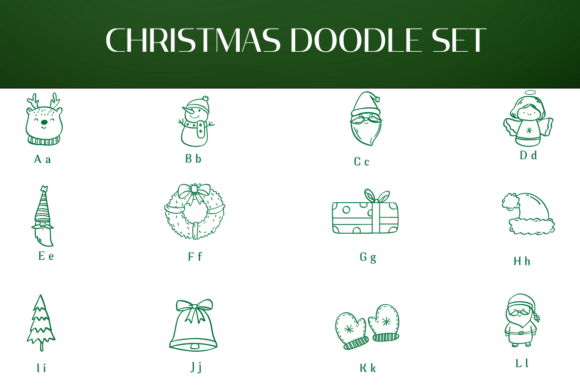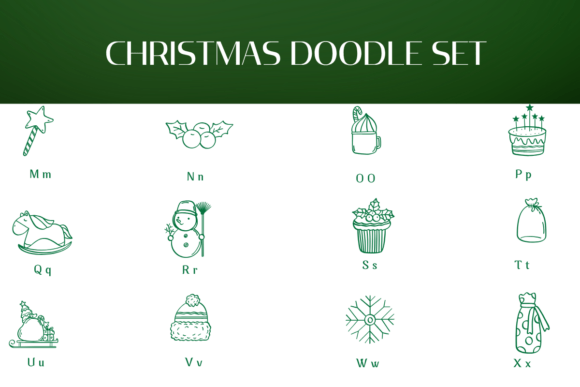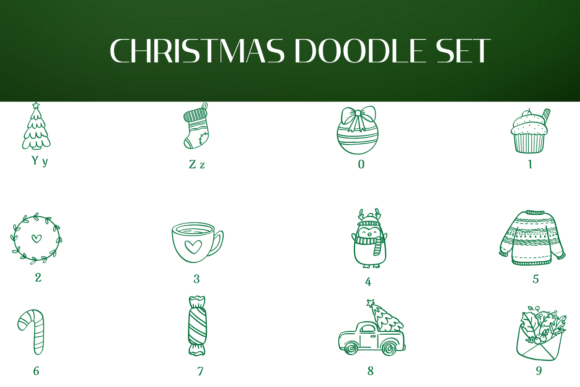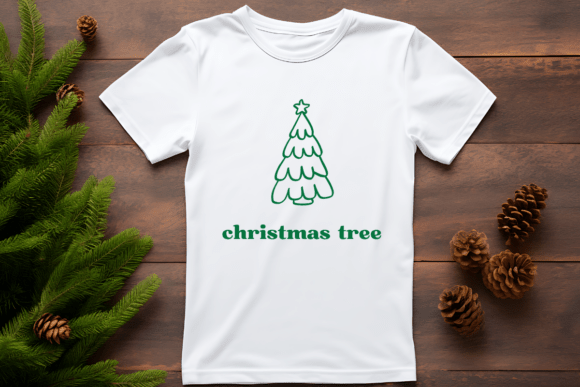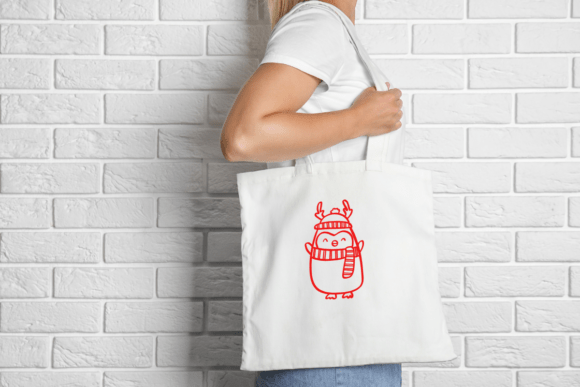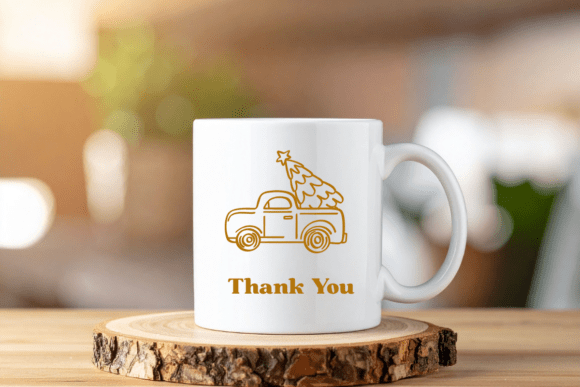
Introducing the Christmas Doodle Set Font: Add a Touch of Holiday Cheer to Your Designs
Are you looking for a way to add a playful and festive touch to your holiday designs? Look no further than the Christmas Doodle Set Font, a charming dingbat font filled with hand-drawn holiday-themed illustrations. This delightful font features a variety of icons, including Santa Claus, reindeer, ornaments, gifts, mittens, snowmen, and more, allowing you to bring seasonal cheer to your design projects with ease.
What is the Christmas Doodle Set Font?
The Christmas Doodle Set Font is a unique and versatile font that consists of a collection of hand-drawn illustrations, each carefully crafted to capture the spirit of the holiday season. From jolly old Santa to playful snowflakes, this font is packed with a wide range of icons that are sure to add a touch of festive fun to any design project. Whether you’re creating greeting cards, gift tags, holiday banners, planner stickers, social media posts, or party decor, this font is the perfect way to add a personal and handcrafted element to your layout.
Key Features of the Christmas Doodle Set Font
- Hand-drawn illustrations: Each icon in the Christmas Doodle Set Font has been carefully hand-drawn to ensure a unique and personal touch.
- Variety of icons: The font features a wide range of holiday-themed icons, including Santa Claus, reindeer, ornaments, gifts, mittens, snowmen, and more.
- Versatile: The Christmas Doodle Set Font is perfect for a wide range of design projects, from print to digital designs.
Design Ideas Using the Christmas Doodle Set Font
The Christmas Doodle Set Font is incredibly versatile, and can be used in a wide range of design projects. Here are a few ideas to get you started:
- Greeting cards: Add a personal touch to your holiday greeting cards with custom illustrations from the Christmas Doodle Set Font.
- Gift tags: Create custom gift tags with a festive touch, perfect for presents, stocking stuffers, and more.
- Holiday banners: Design eye-catching holiday banners with a playful and festive touch.
- Planner stickers: Add a touch of holiday cheer to your planners and journals with custom stickers created using the Christmas Doodle Set Font.
- Social media posts: Create engaging and festive social media posts with custom illustrations from the Christmas Doodle Set Font.
- Party decor: Design custom party decor, including invitations, banners, and more, with a playful and festive touch.
Why Choose the Christmas Doodle Set Font?
There are many reasons why the Christmas Doodle Set Font is the perfect choice for your holiday design projects. Here are just a few:
- Unique and personal touch: The hand-drawn illustrations in the Christmas Doodle Set Font add a unique and personal touch to your designs.
- Versatile: The Christmas Doodle Set Font can be used in a wide range of design projects, from print to digital designs.
- Festive and fun: The illustrations in the Christmas Doodle Set Font are sure to add a touch of festive fun to your designs.
If you’re looking for a way to add a playful and festive touch to your holiday designs, the Christmas Doodle Set Font is the perfect choice. With its hand-drawn illustrations, ease of use, and versatility, this font is sure to become a go-to in your design toolkit. Whether you’re a professional designer or a crafter, the Christmas Doodle Set Font is the perfect way to bring seasonal cheer to your design projects.